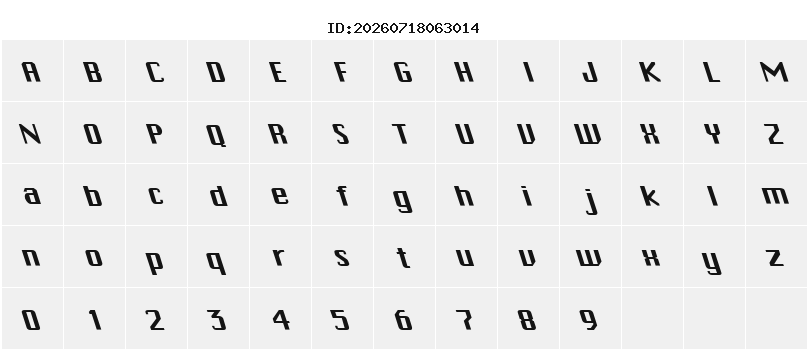
Chi Town-Light Lefty Preview
• Font Name: Chi Town-Light Lefty
• Full Font Name: Chi Town Light Lefty
About Chi Town-Light Lefty.ttf
Chi Town-Light Lefty.ttf is a modern, elegant sans-serif font designed for ultimate readability and visual harmony. Perfect for branding, headlines, web design, and print materials.